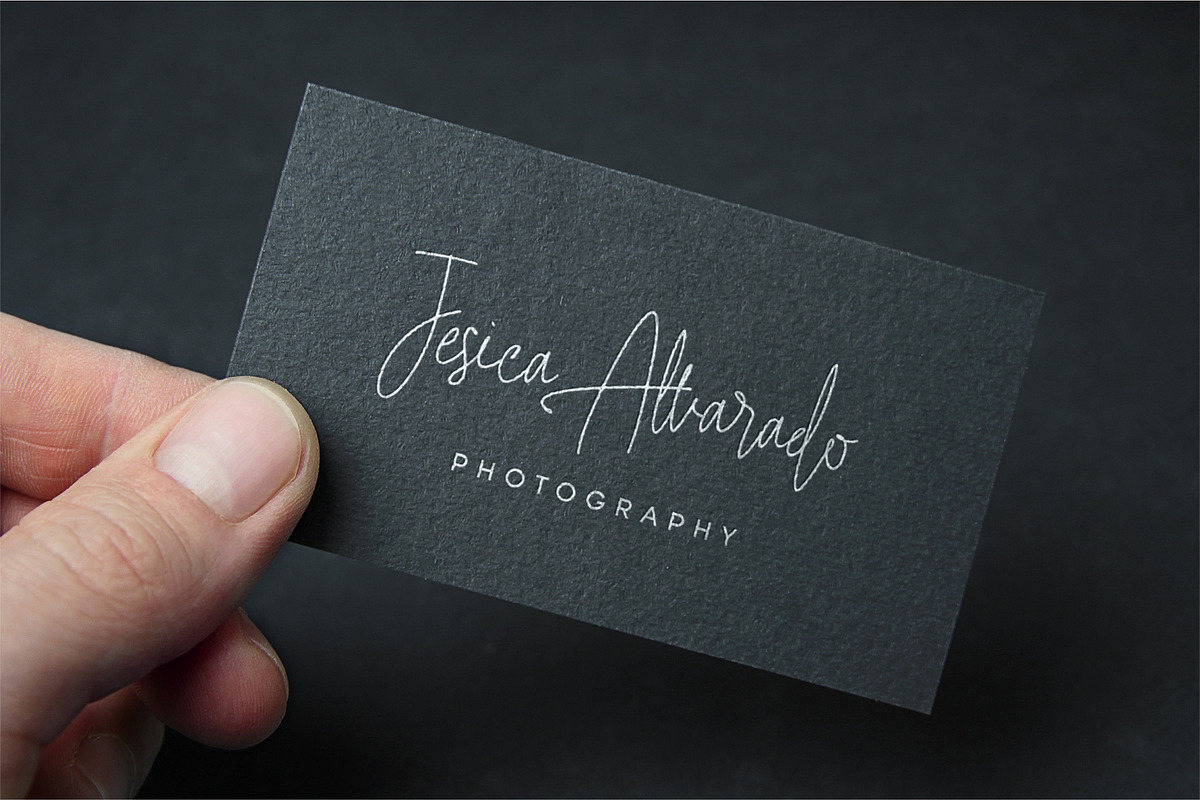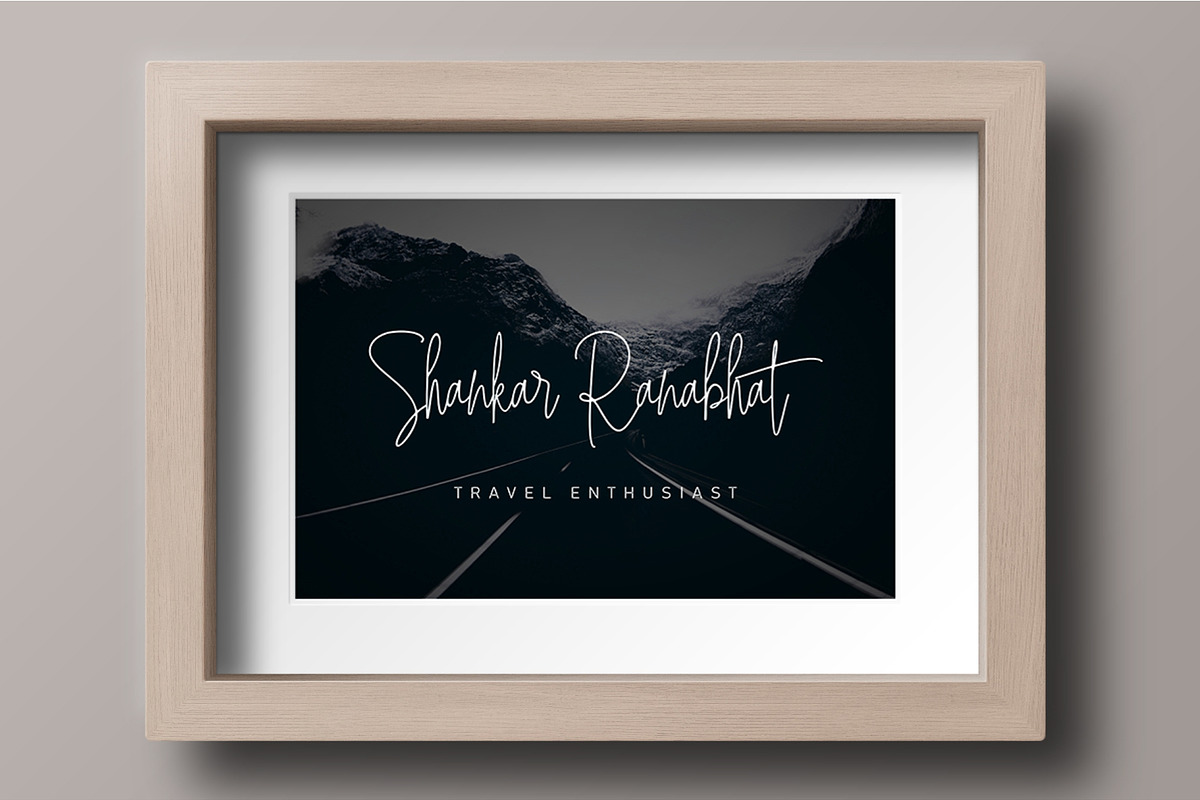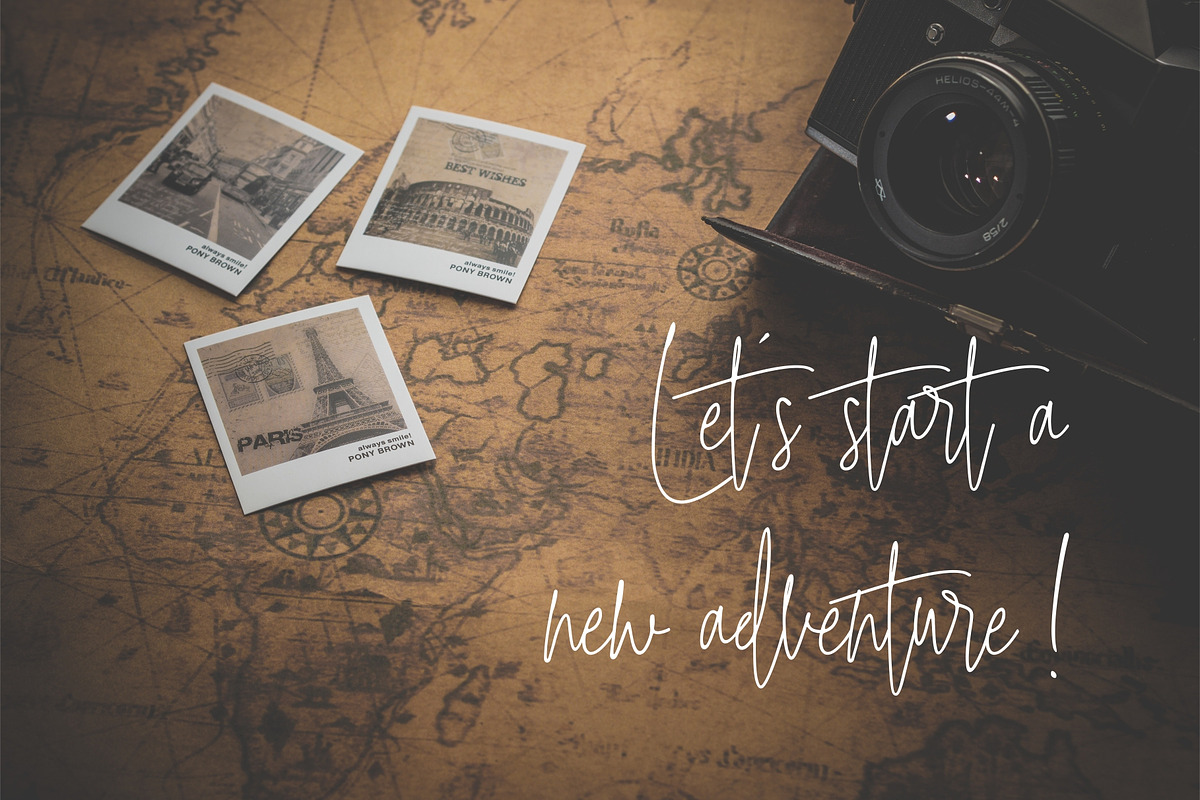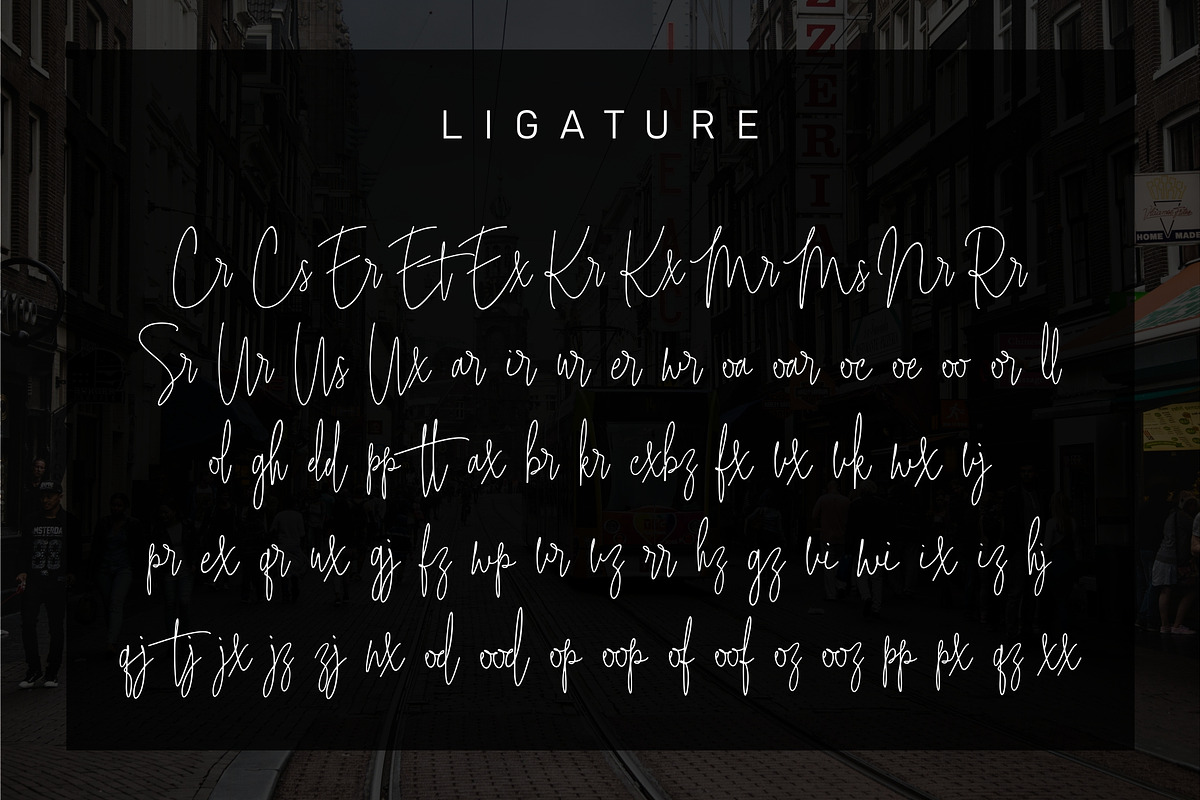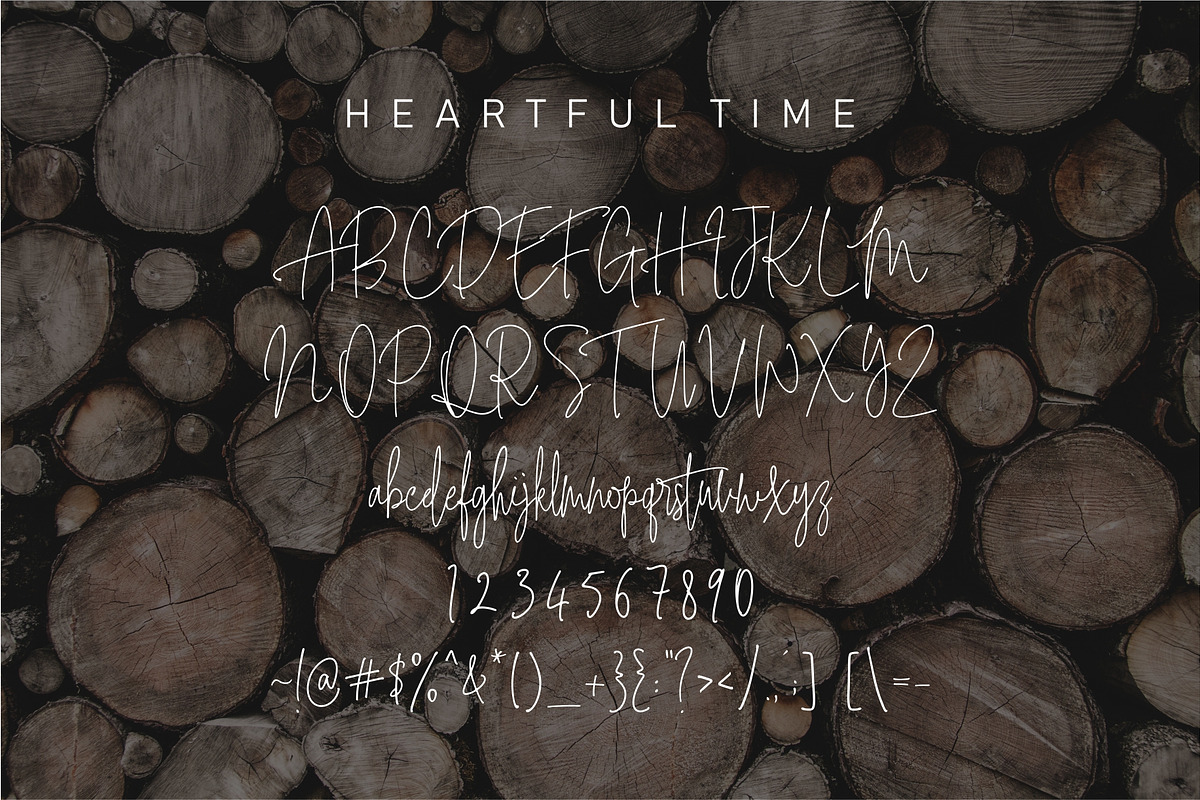
Intelligent Signature
Introducing Intelligent Signature, beautiful, unique, modern script font. It has 2 different sensations which is Intelligent Signature Alt that will perfectly suit to feminine, beautiful, modern, sexy design and Intelligent Signature will look so good in luxurious, classy, contemporary design.
Intelligent Signature was made to look so natural with more than 100 ligatures included.